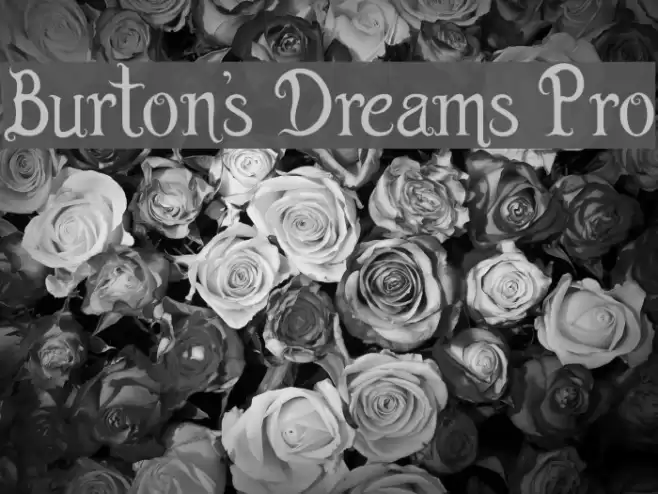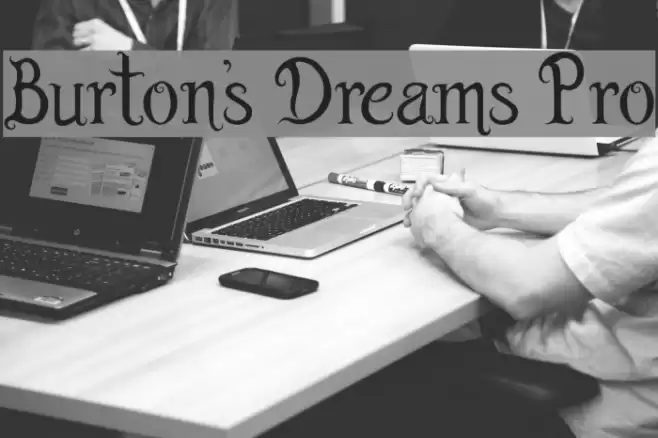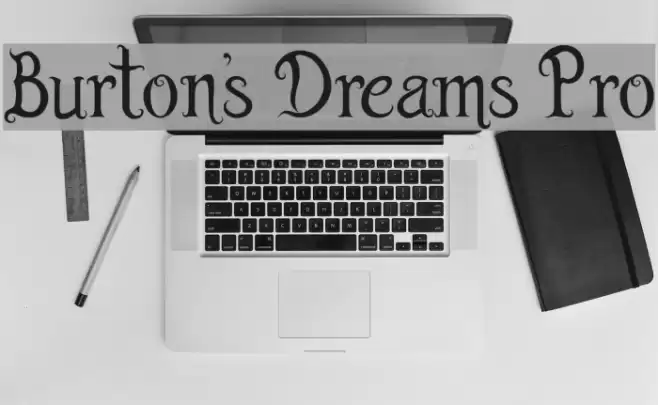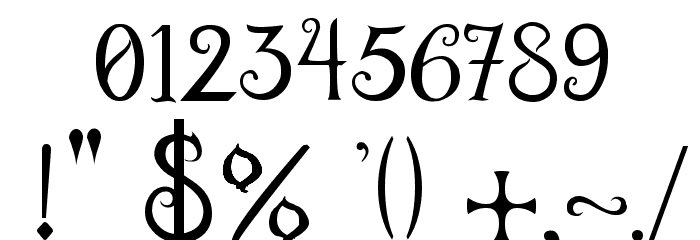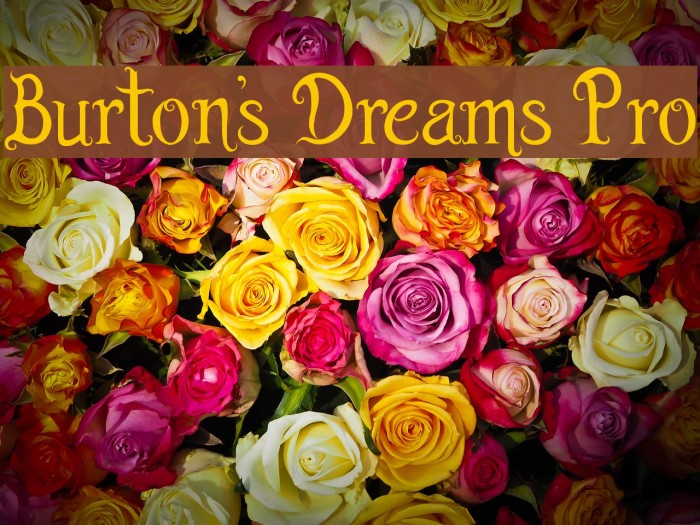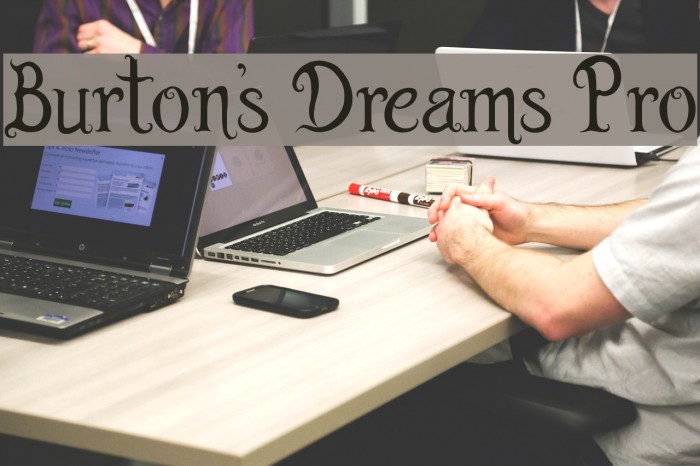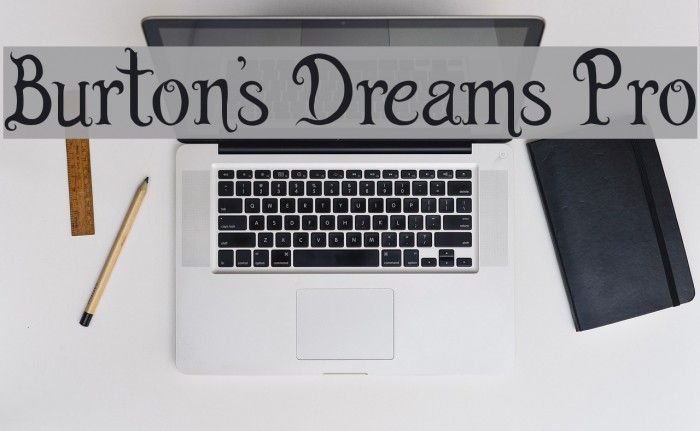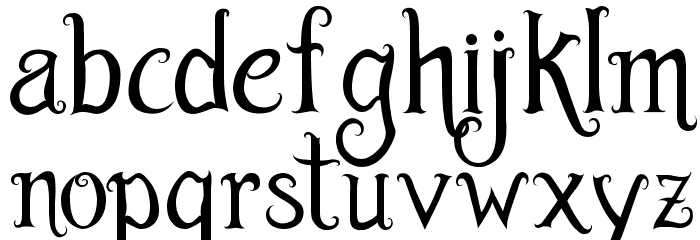
Burton's Dreams Pro Font
Burton's Dreams Pro Description
This font features a whimsical and playful design, characterized by its curly and decorative serifs. The uppercase letters are bold and prominent, with unique flourishes that add a touch of fantasy. The lowercase letters maintain a consistent style, offering a harmonious blend of curves and straight lines. Numbers are clear and easy to read, while special characters are creatively styled to match the overall theme. This font exudes a sense of fun and creativity, making it ideal for projects that require a touch of magic and imagination.
A whimsical and decorative serif font with playful curls and flourishes from Uncategorized fonts.
- Proposed Projects: Ideal for children's books, fantasy-themed posters, playful branding, and creative invitations.